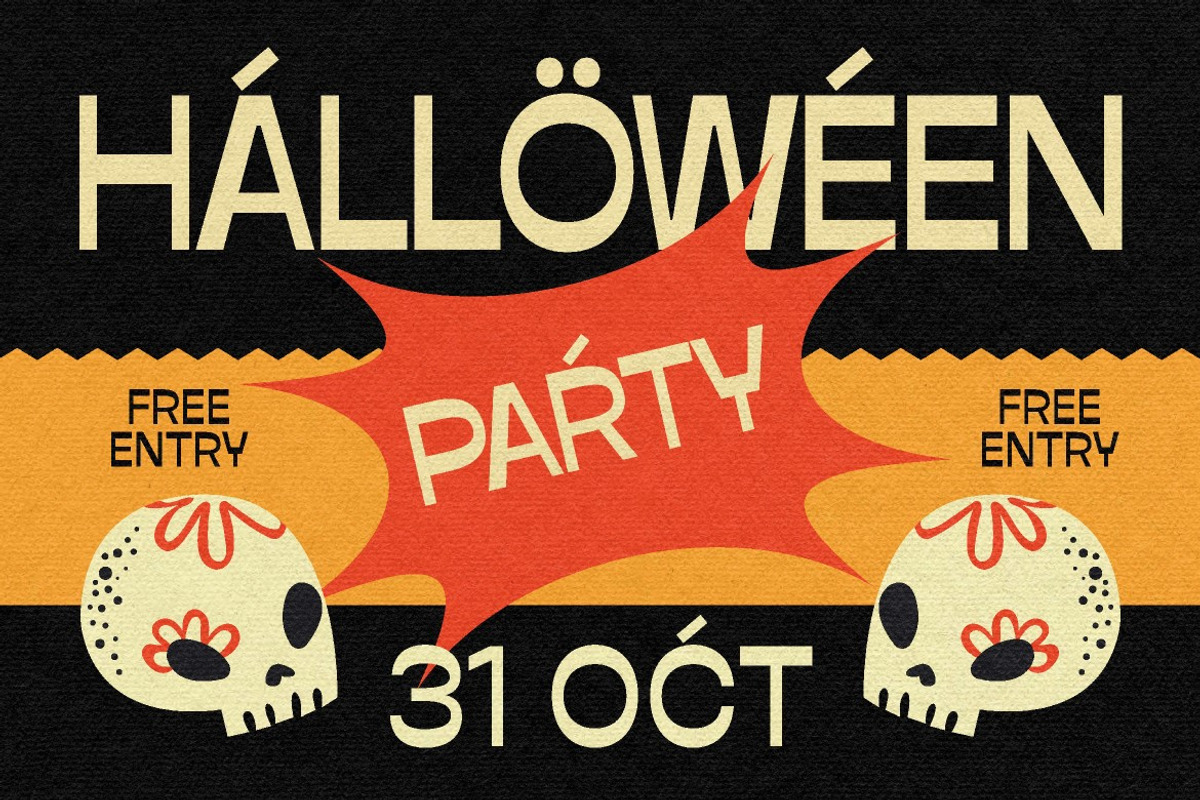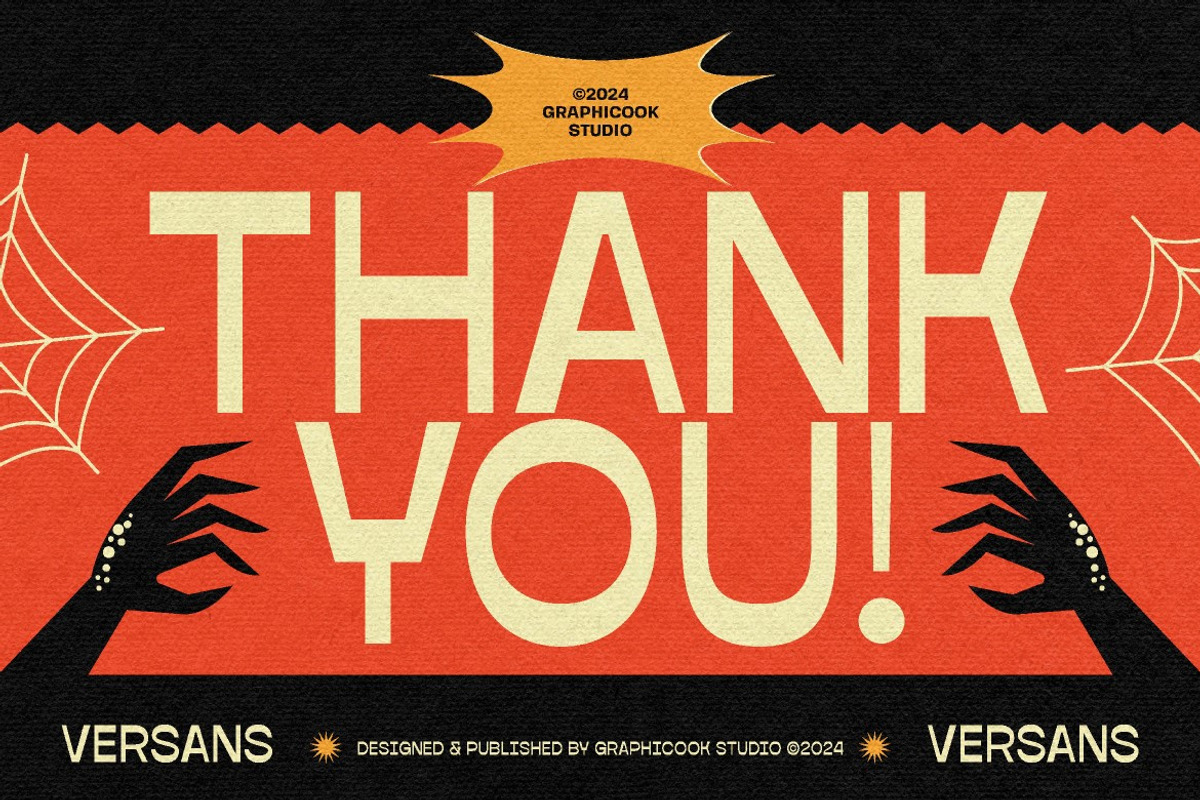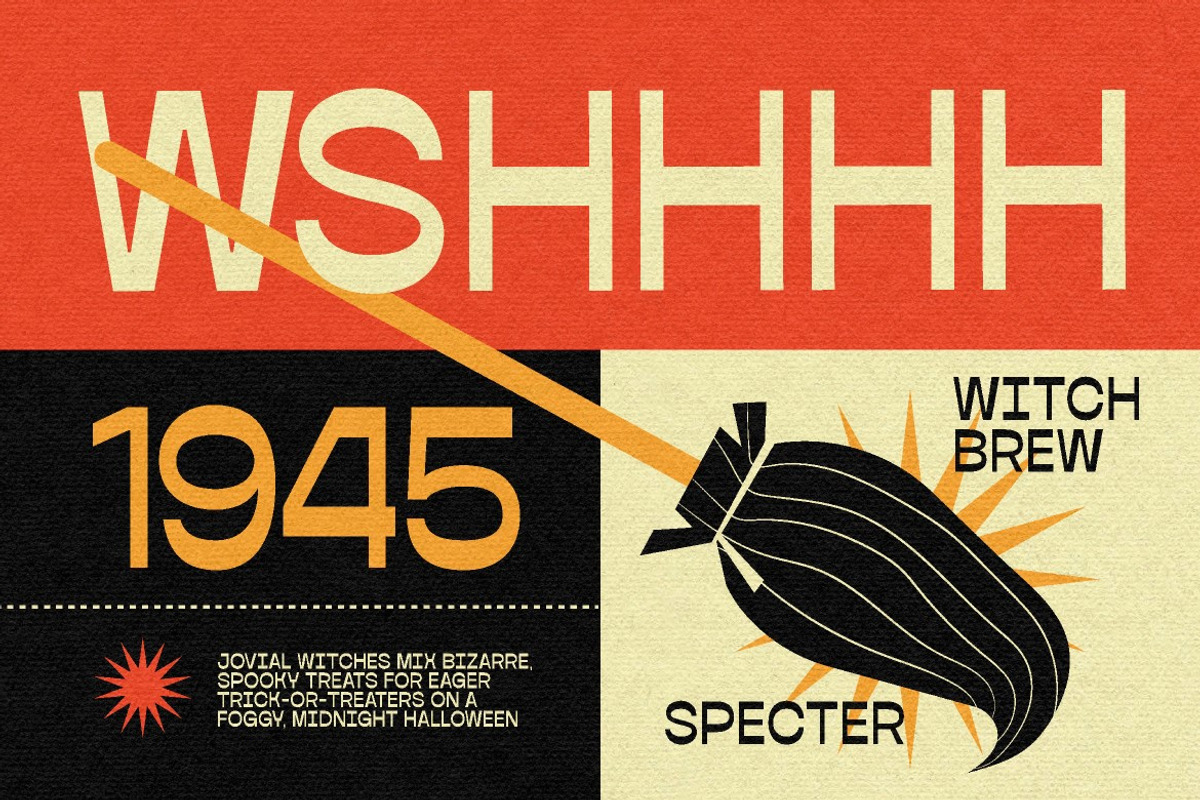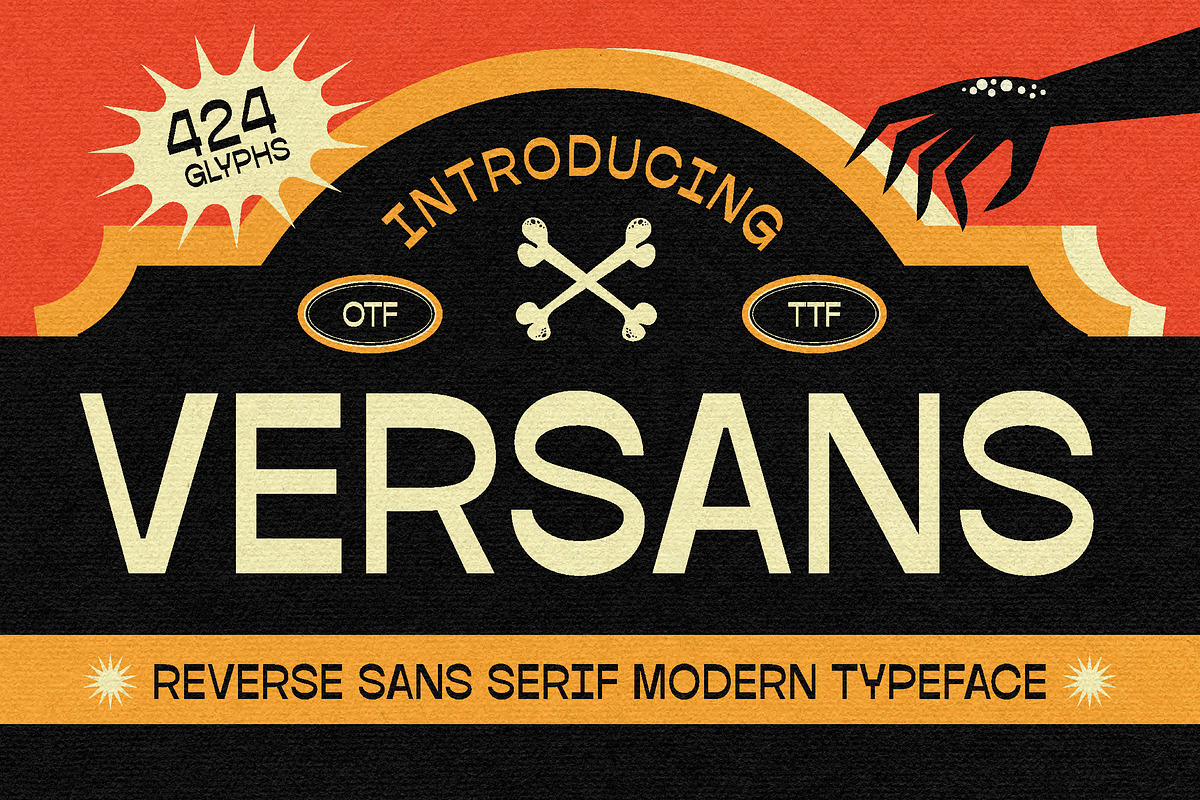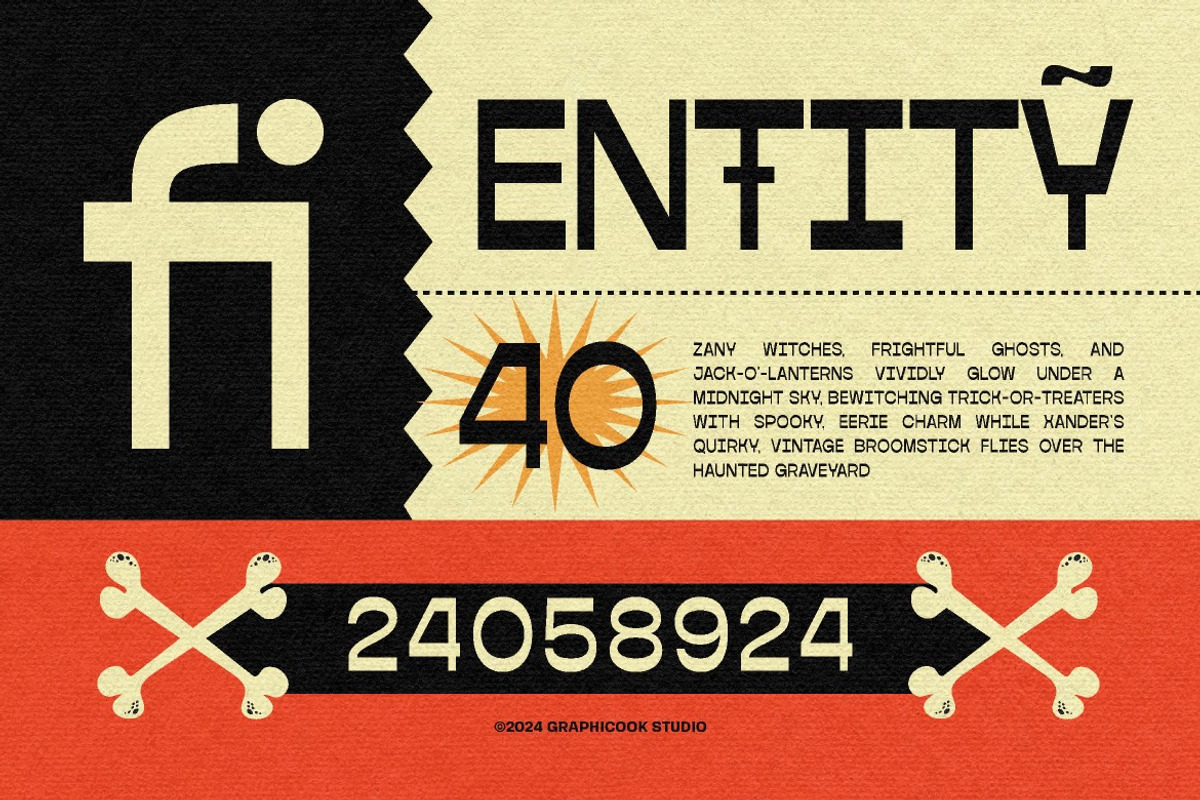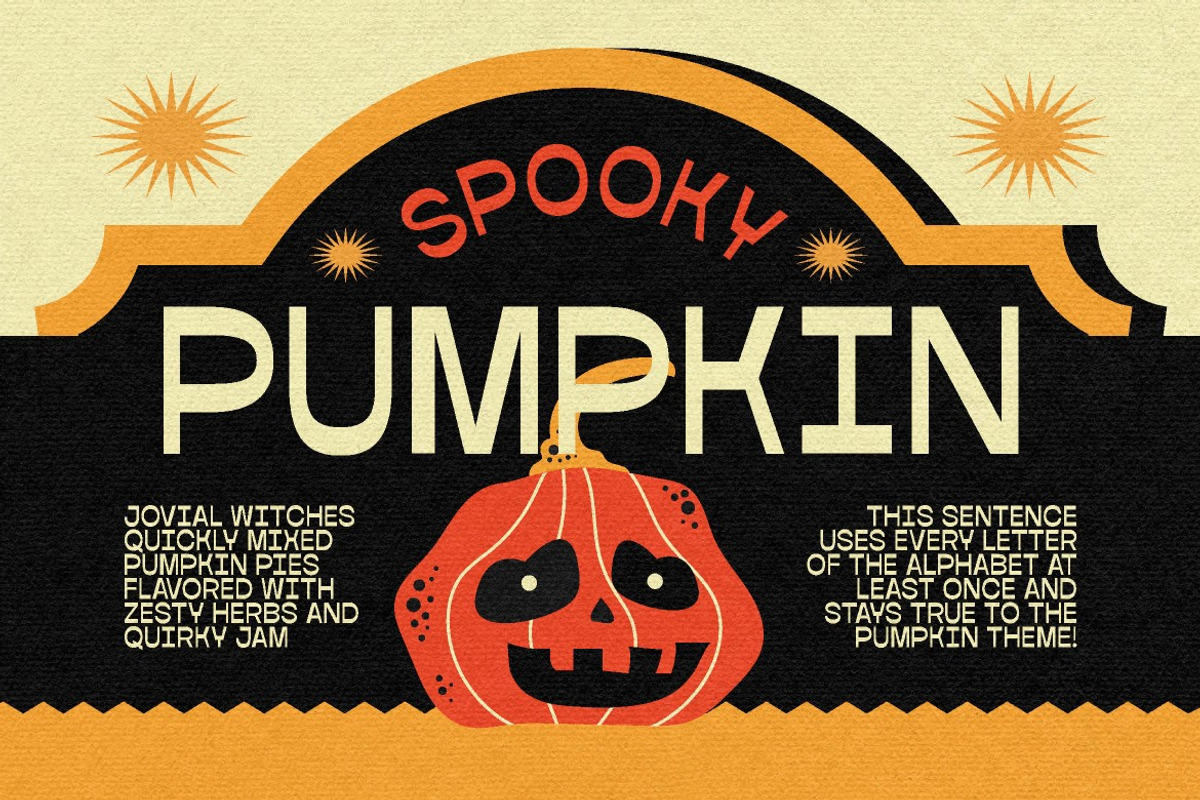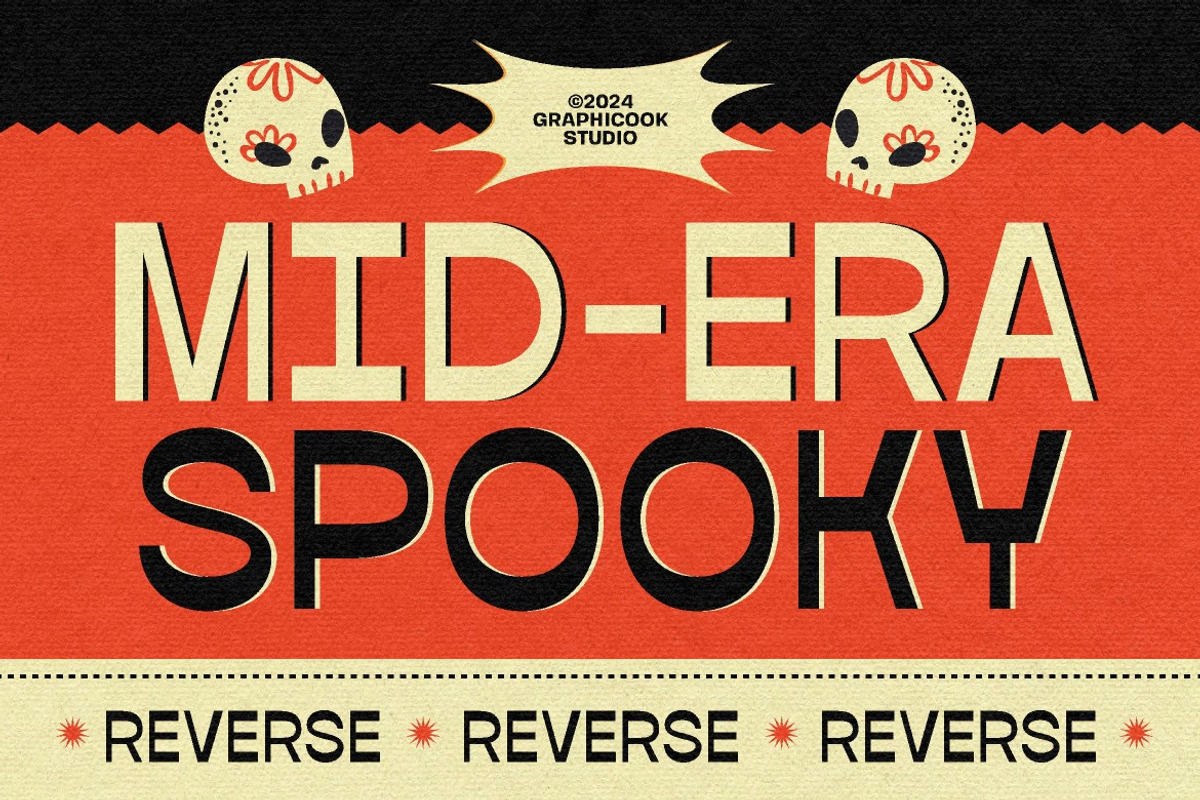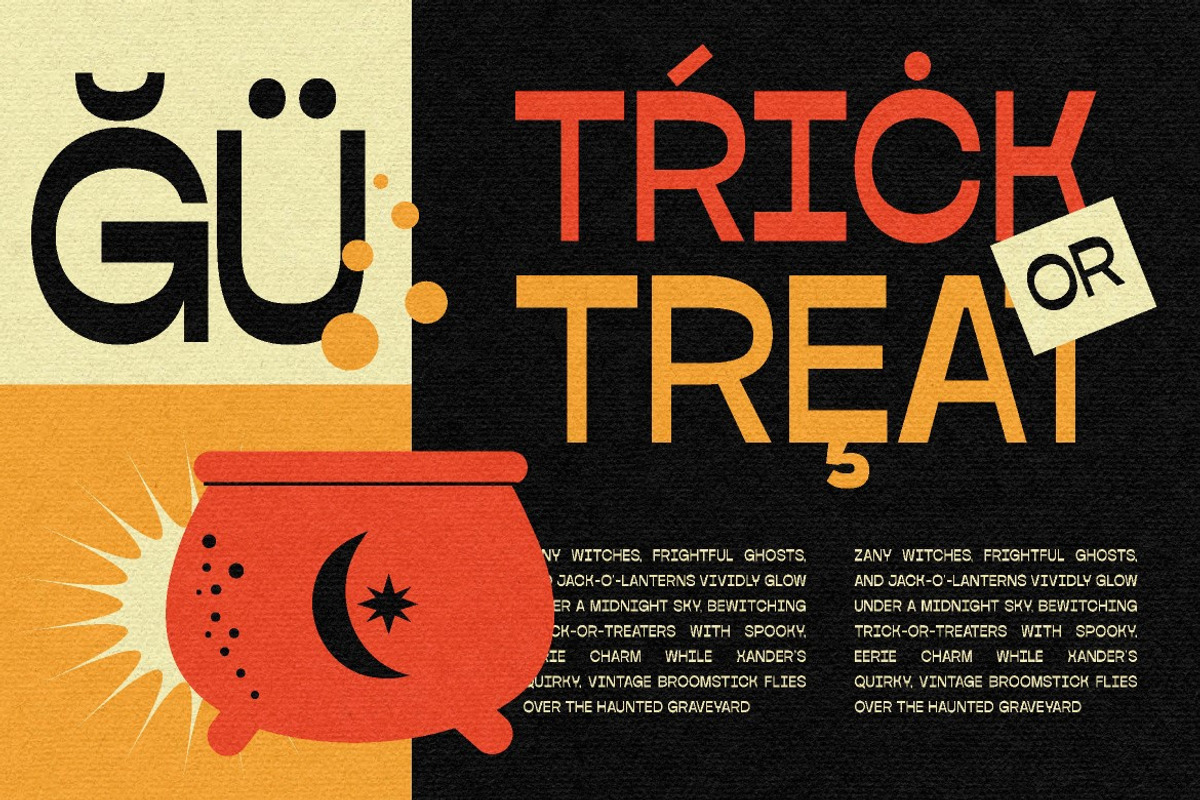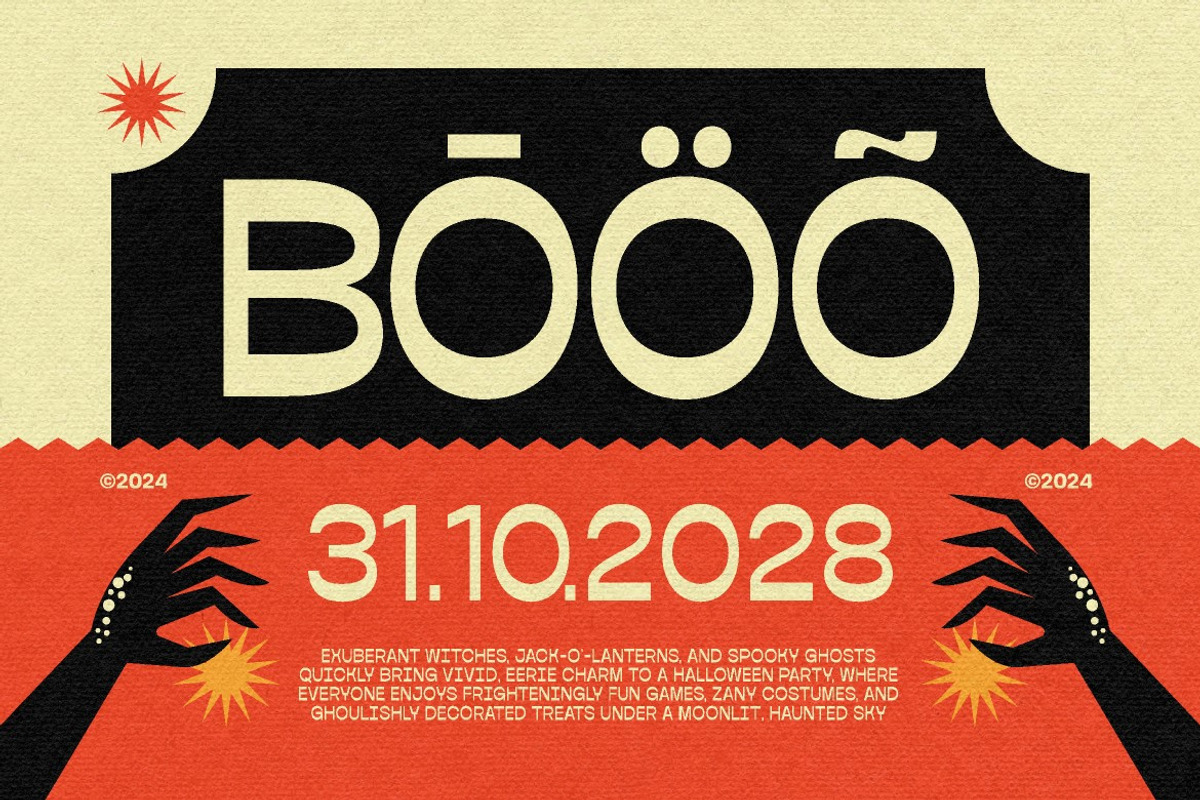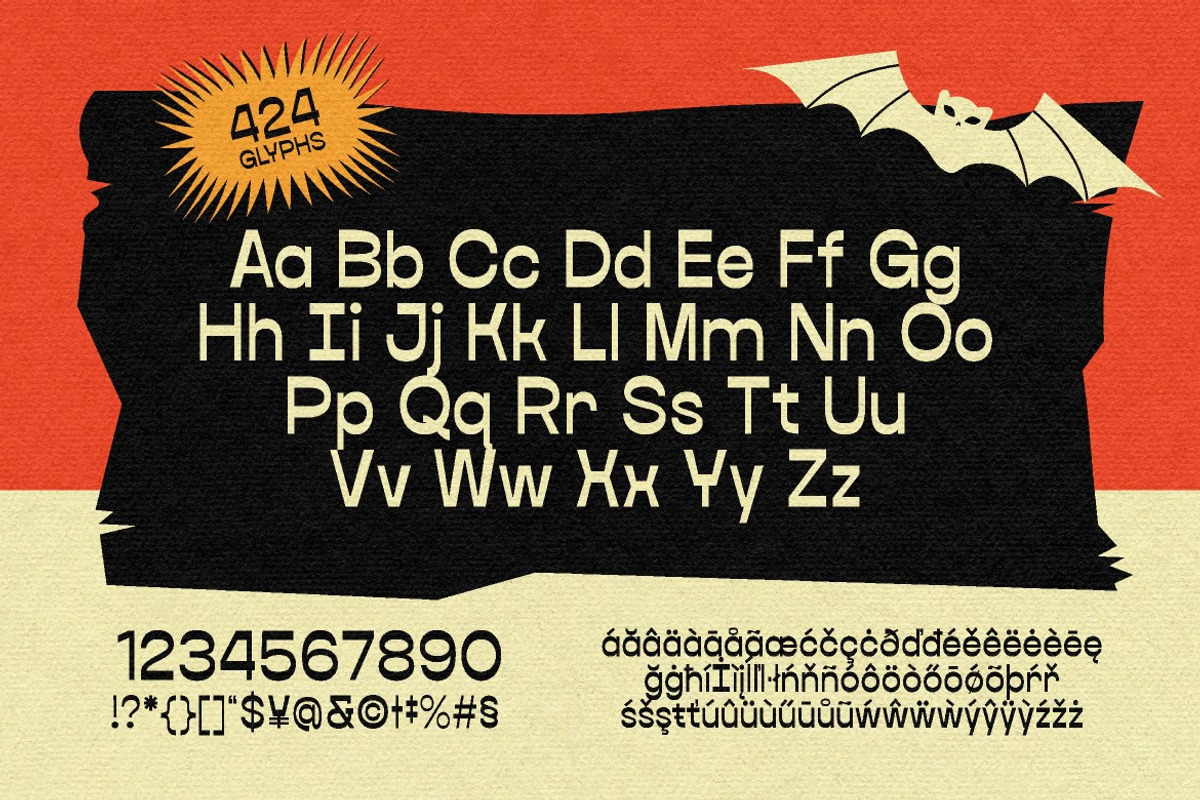
Versans
Versans is a unique blend of reverse and sans serif designed to bring your projects with a spooky Halloween spirit. It is ideal for packaging, zines, posters, and more. Guaranteed to haunt your designs as it rise from the grave!
Versans is perfect for headlines, logotypes, magazines, packaging, quotes, movies, games, cover albums, book covers, and flyers, it's a perfect solution for creating eye-catching designs that stand out in any context.